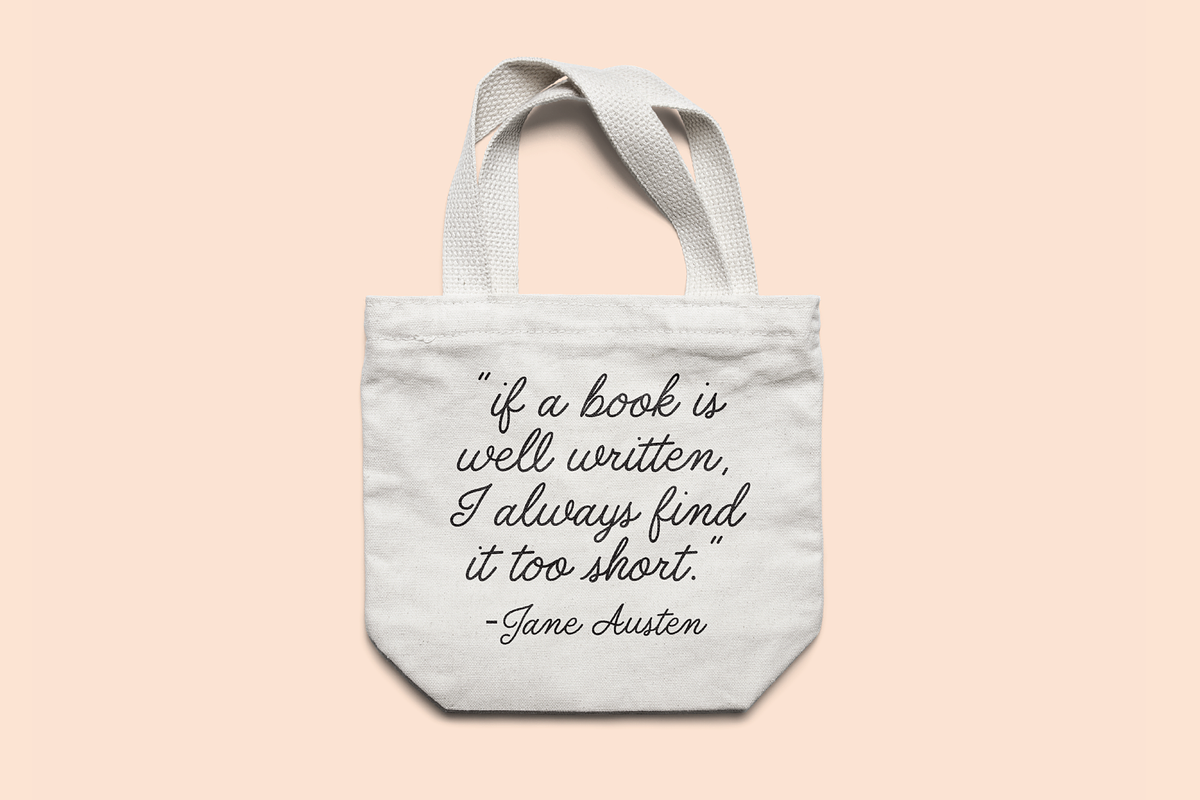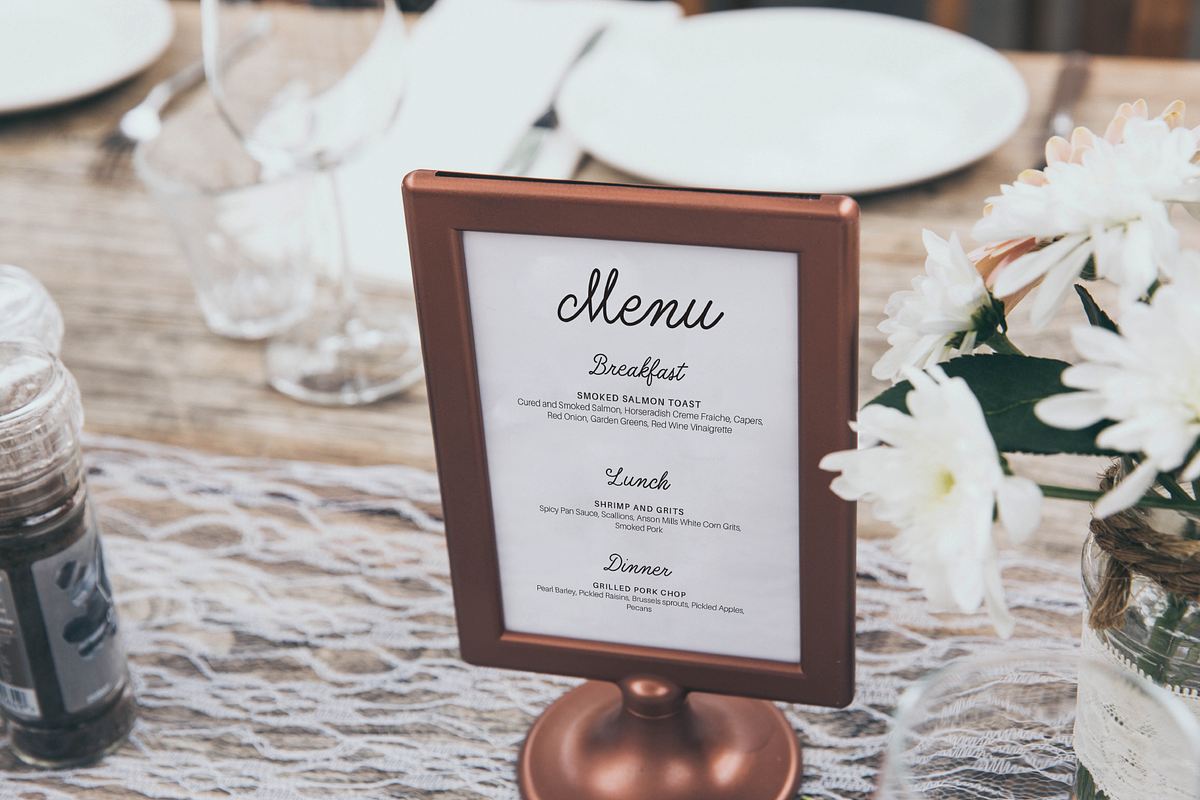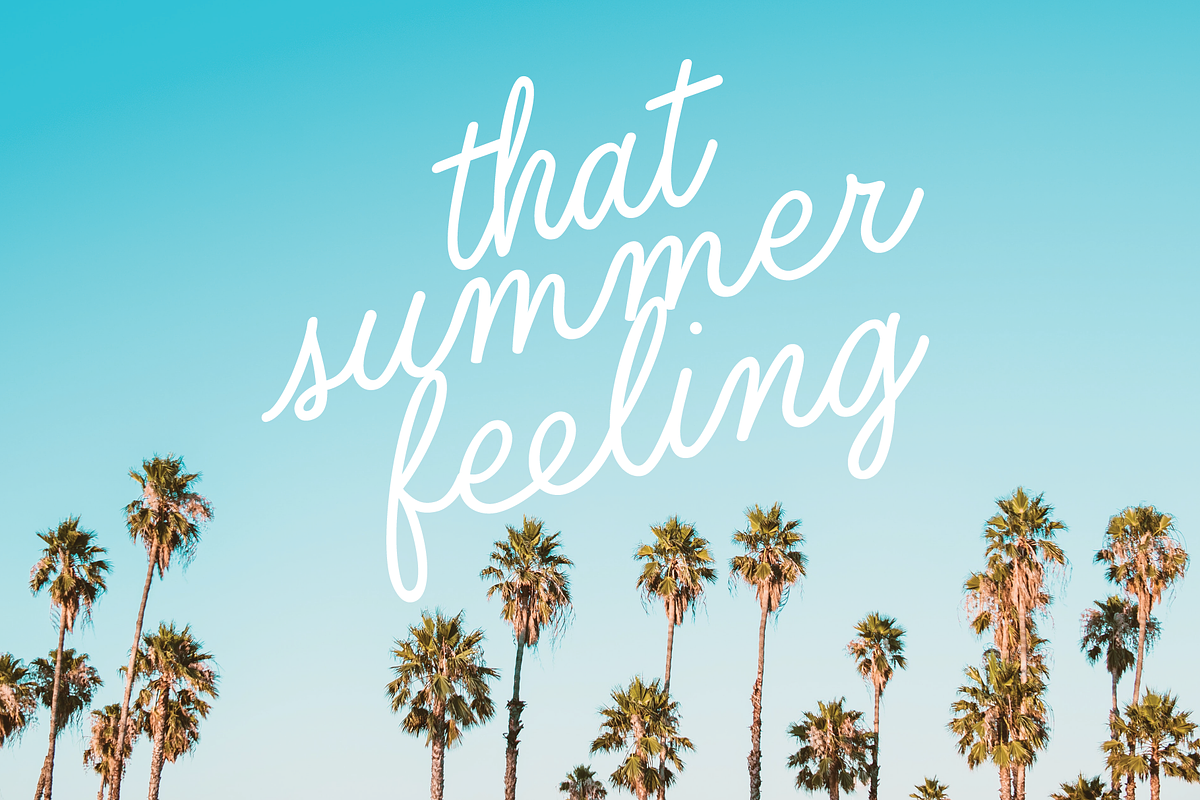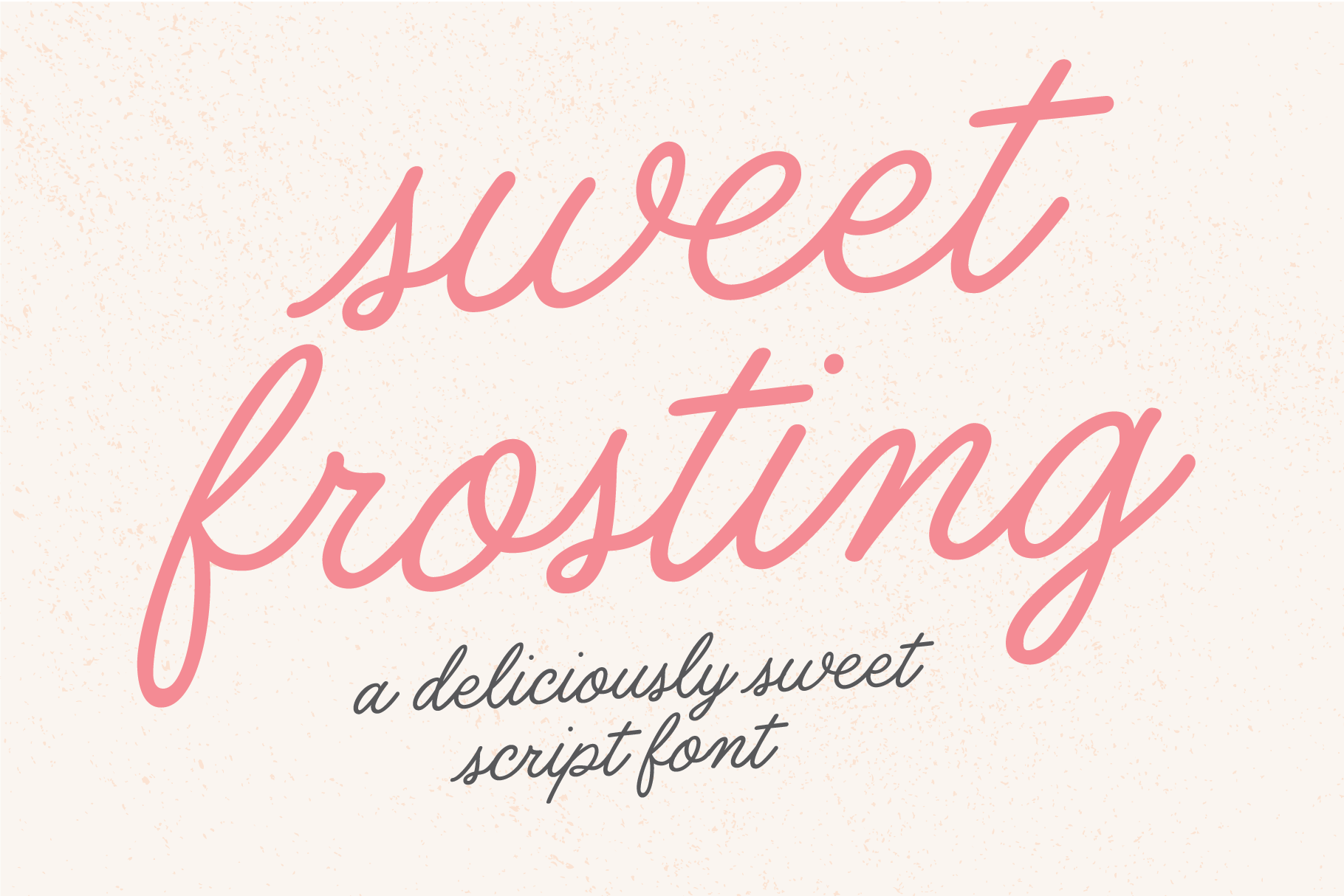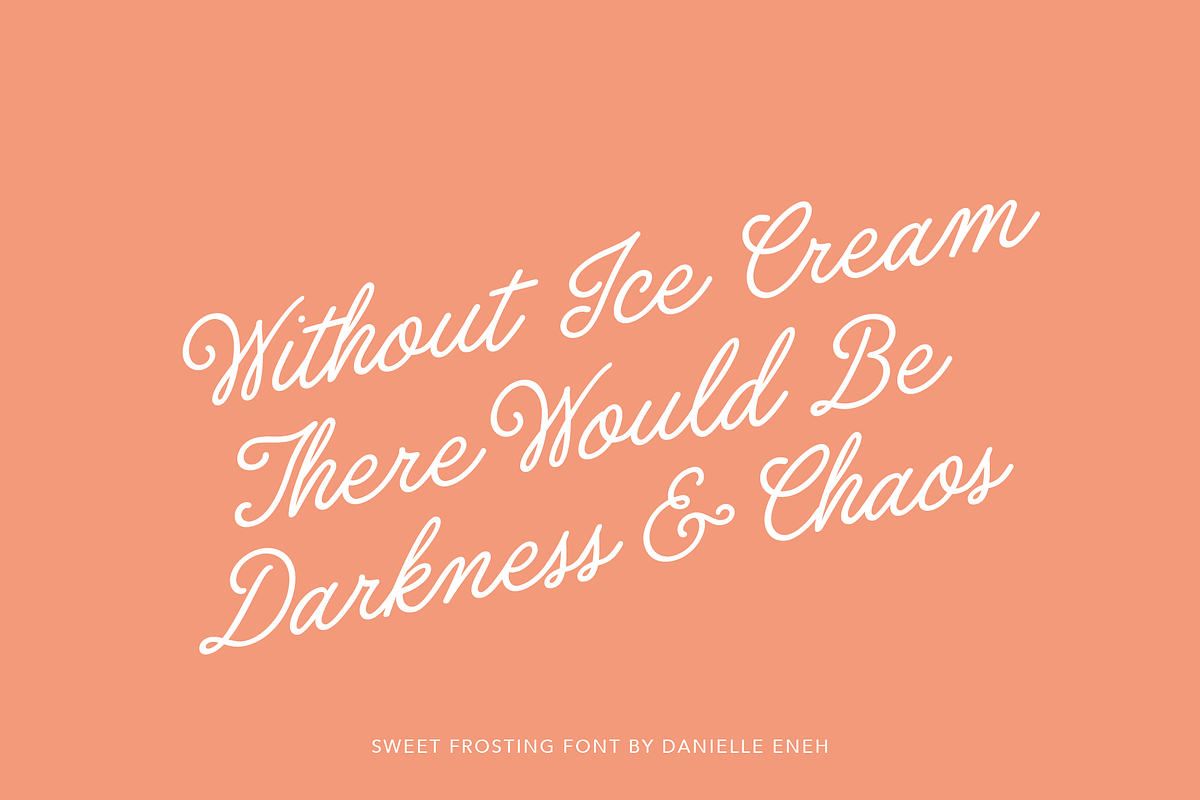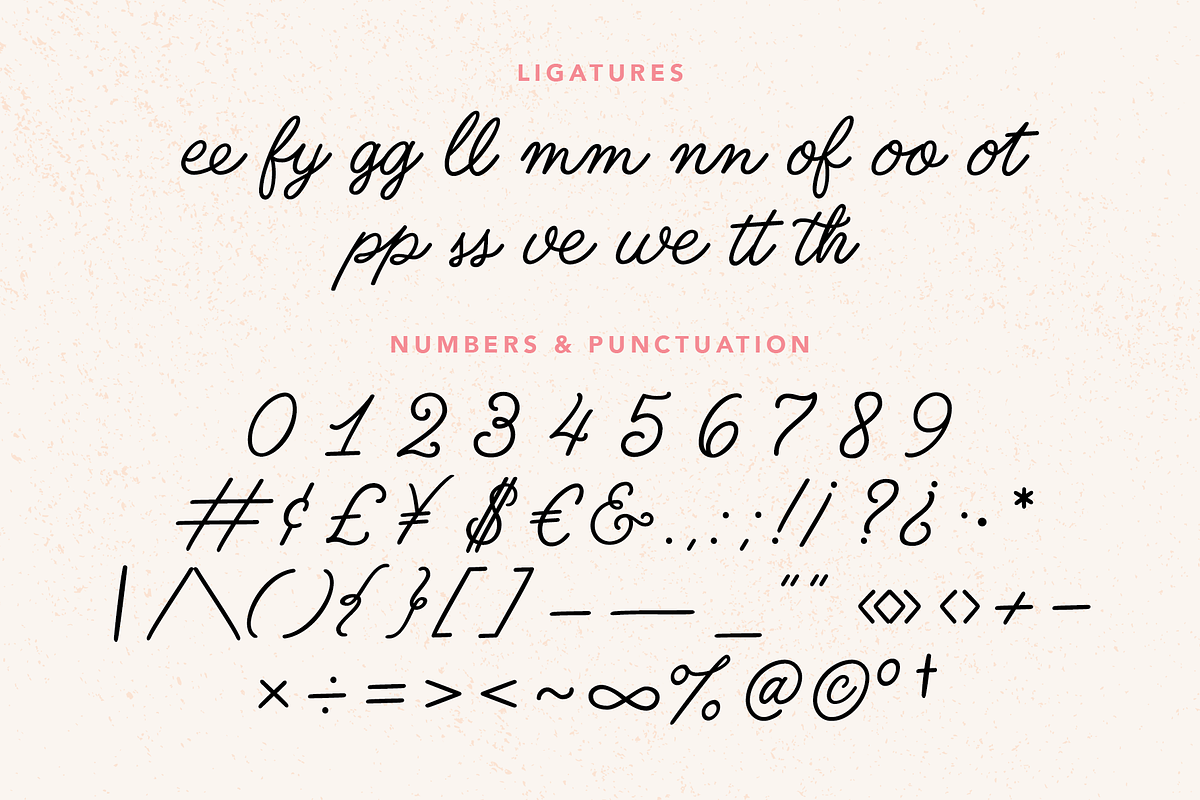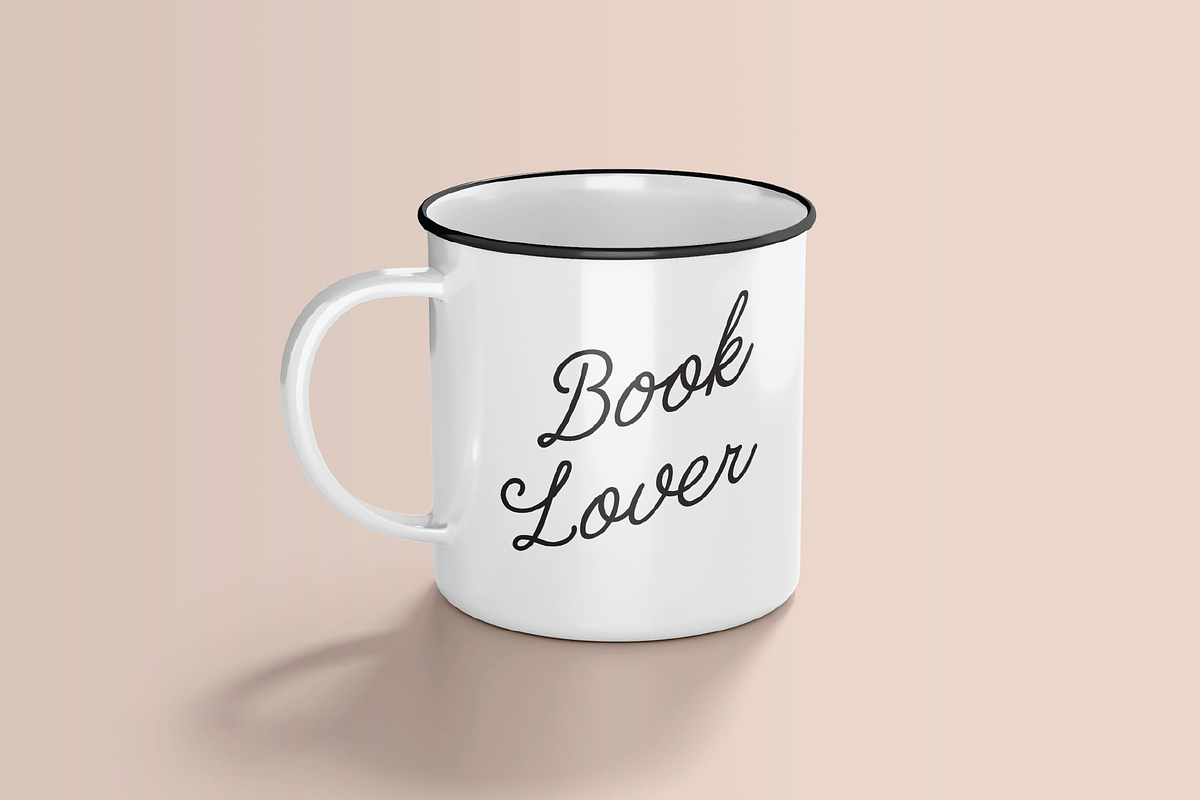
Sweet Frosting - Handwriting Font
Sweet Frosting is a cute script font designed to be reminiscent of a script from a handwritten menu or sign. It will add a quirky, fun but still elegant touch to your designs. The smooth edges create a clean look for your modern design projects.
It’s perfect for branding projects, social media posts, product packaging, product designs, labels, and invitations.
Sweet Frosting comes with 297 glyphs- including 2 uppercase sets, lowercase, numerals, punctuation and includes 16 ligatures for a more natural handwritten feel.
❤ 297 glyphs — 2 Uppercase sets, lowercase, numbers, symbols, punctuation, 16 styled ligatures